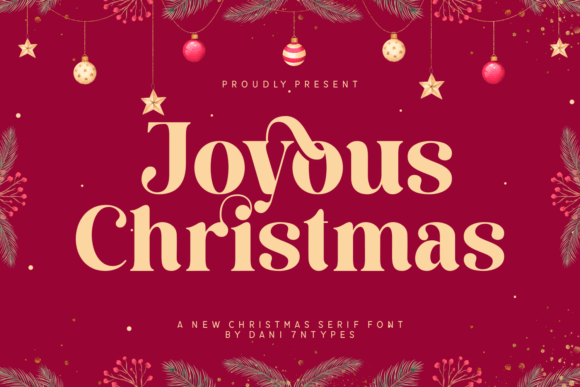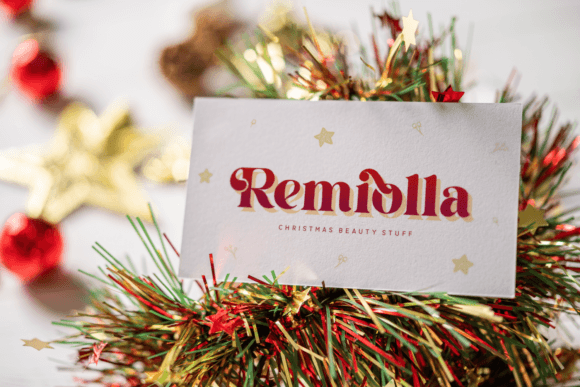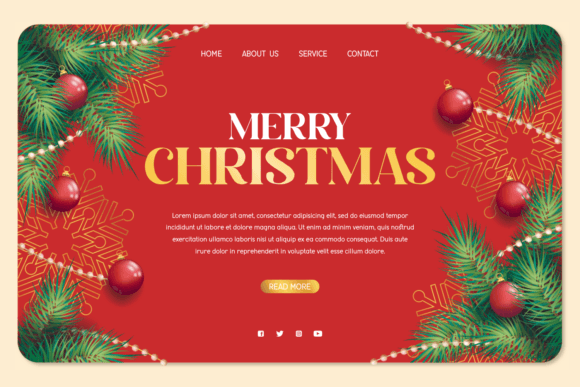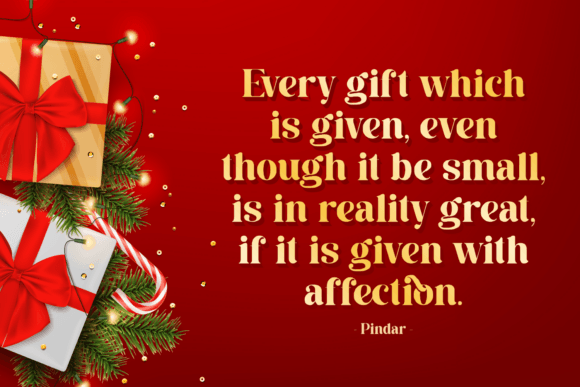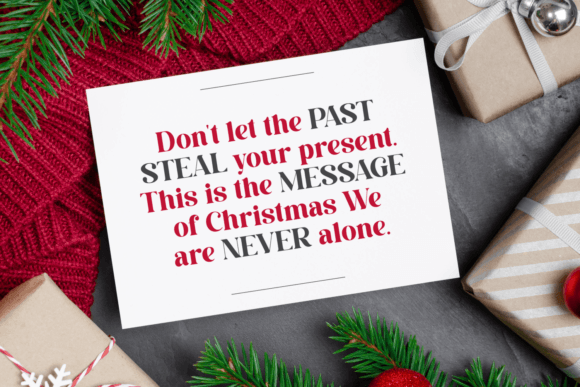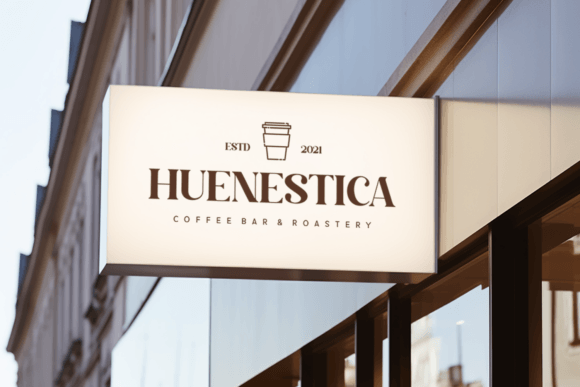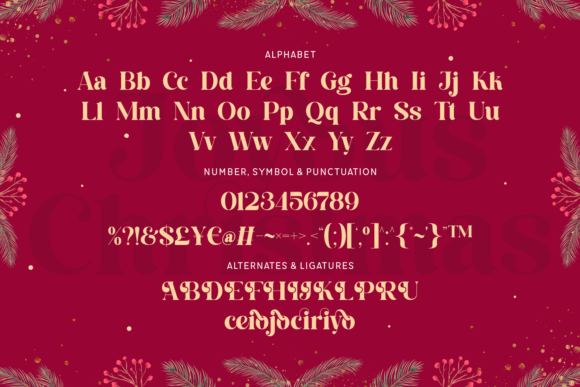
The Magic of Joyous Christmas Font
It’s that time of the year when creativity flows like hot cocoa, and the spirit of giving is in the air. As you sit by the fireplace, surrounded by twinkling lights and the soft glow of your computer screen, you start brainstorming ideas for the perfect holiday design. The Joyous Christmas Font is the perfect companion for your creative journey, adding a touch of warmth and elegance to your festive projects.
This charming serif font is designed to bring a sense of joy and festivity to your designs, making it perfect for creating Christmas cards, invitations, and decorations. With its classic, rounded letters, the Joyous Christmas Font is a valuable asset for designers looking to add a personal touch to their holiday projects. Its versatility and charm make it a must-have for anyone looking to create unforgettable holiday designs.
Key Features of Joyous Christmas Font
- Font Family: Joyous Christmas, a festive and cheerful font designed specifically for the holiday season.
- Unique Characteristics: Features intricate, hand-drawn illustrations and ornaments, adding a touch of whimsy and festivity to any design.
- Font Style: Includes a range of font styles, including Regular, Bold, Italic, and Bold Italic, allowing for versatility in design applications.
Designer Review: Joyous Christmas Font
Overall, I think the Joyous Christmas Font is a nice addition to any holiday-themed design project. ✨ It’s playful and cheerful, making it perfect for cards, invitations, and social media graphics. The font’s curves and swashes add a touch of whimsy and festivity, which I appreciate.
Here are some specific things that work well:
- ✨ The font’s consistent line height and spacing make it easy to read and use in larger blocks of text.
- ✨ The font’s range of weights and styles allow for a lot of creative flexibility.
- ✨ The font’s playful feel makes it a great choice for designs that need a bit of whimsy.
- ⚠️ The font may be a bit too ornate for some designs, making it difficult to read or use in smaller sizes.
- ⚠️ The font’s weight and style options may not be as extensive as some other fonts in the same category.
- ⚠️ The font may not be as versatile as other fonts, making it less suitable for non-holiday designs.
Overall, I think the Joyous Christmas Font is a solid choice for holiday-themed designs. While it may have some limitations, its playful feel and creative flexibility make it a great addition to any designer’s toolkit.
For the most impact, use the Joyous Christmas Font in bold and large font sizes for headings and titles.
It’s perfect for creating festive holiday cards, invitations, and social media posts.
You can also use it to add a touch of whimsy to your blog posts and articles about holiday traditions and recipes.